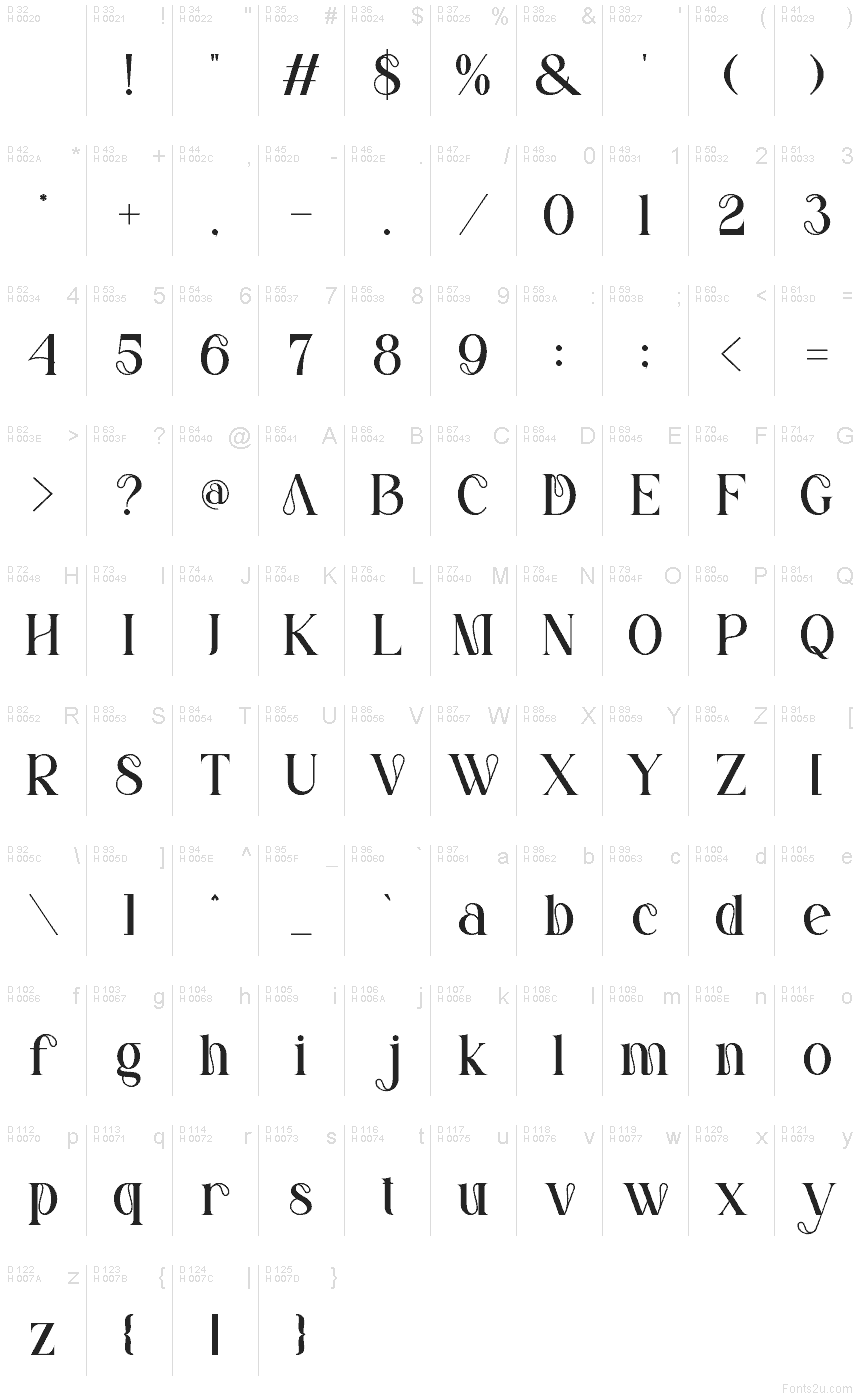
Meltha Regular
Meltha font by Ermedia Studio is a free vintage display font that leans into lush contrast and sculpted curves. Thick, inky strokes slice into hairline thins, while crescent-like apertures give each letter a candlelit glow. It reads like a hand-carved poster from a grand theater—dramatic, poised, and unmistakably tactile.
Using Meltha, headlines gain a slow, luxurious rhythm that shines on boutique branding, wine and perfume labels, magazine mastheads, event invitations, artisan packaging, and café menus. This free font loves large sizes where its tapering strokes can breathe; add a touch of tracking for extra polish. Pair with a crisp modern sans for body copy to keep the spotlight on Meltha’s sumptuous forms.